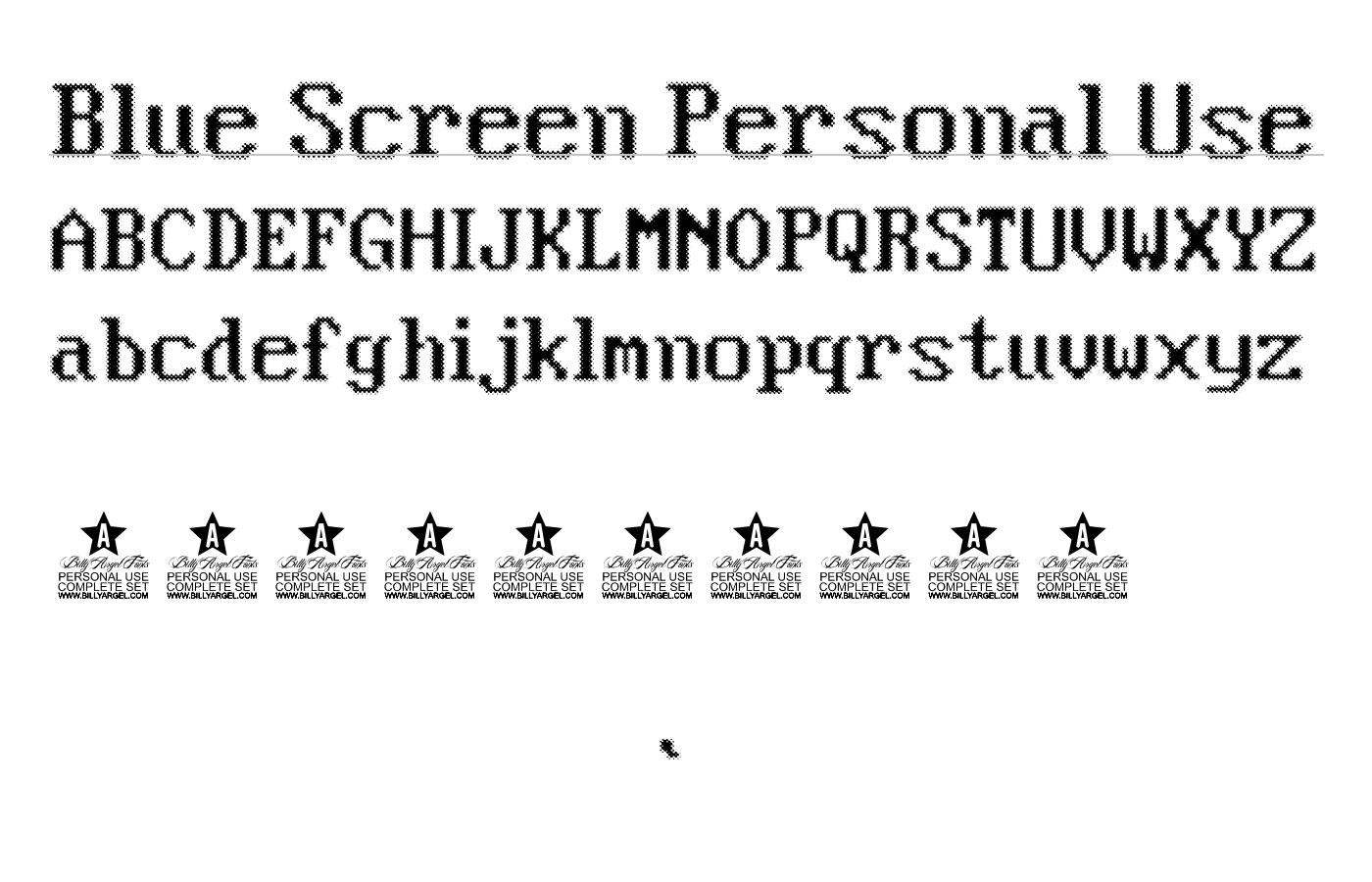
Blue Screen Personal Use is a distinctive serif font with a pixelated, vintage computer screen aesthetic. Its tall, narrow letterforms and sharp, blocky serifs give it a retro digital feel, making it perfect for designs that want to evoke tech nostalgia, gaming, or digital culture in a bold yet readable style. This font works well in headlines, logos, and creative projects that benefit from a unique blend of old-school technology charm and modern clarity.